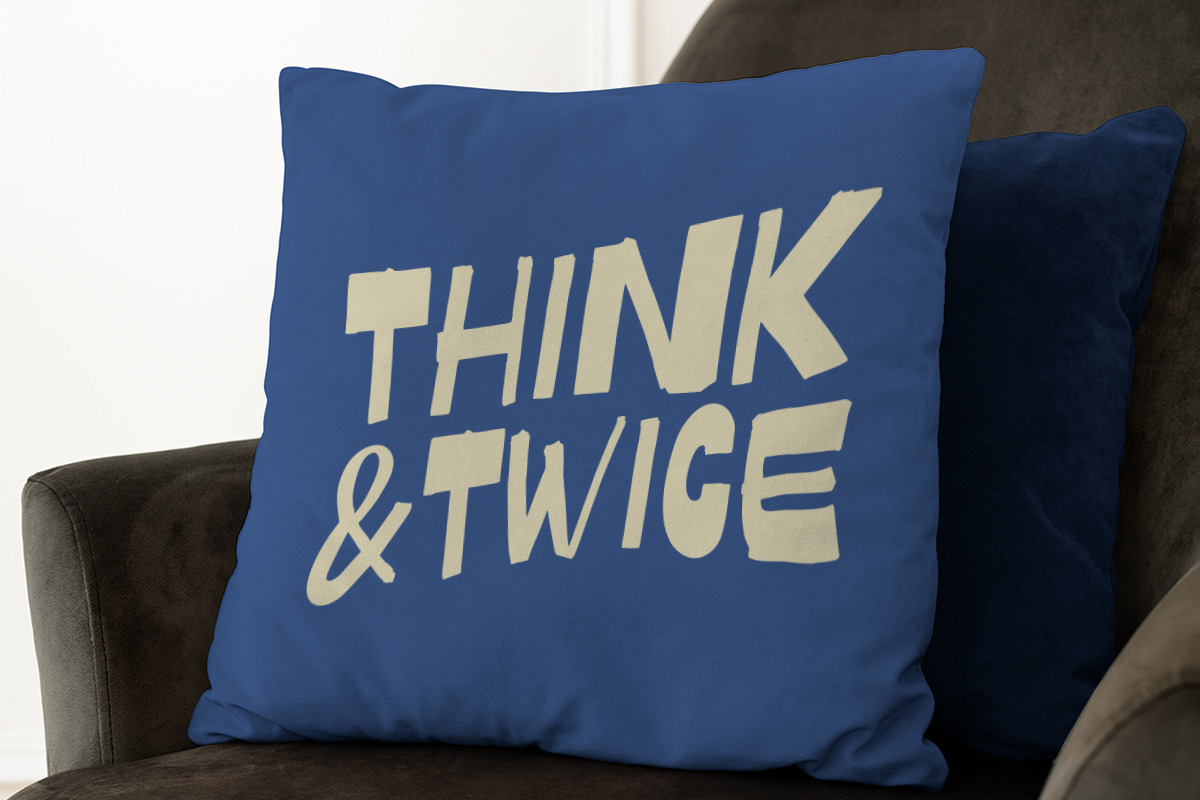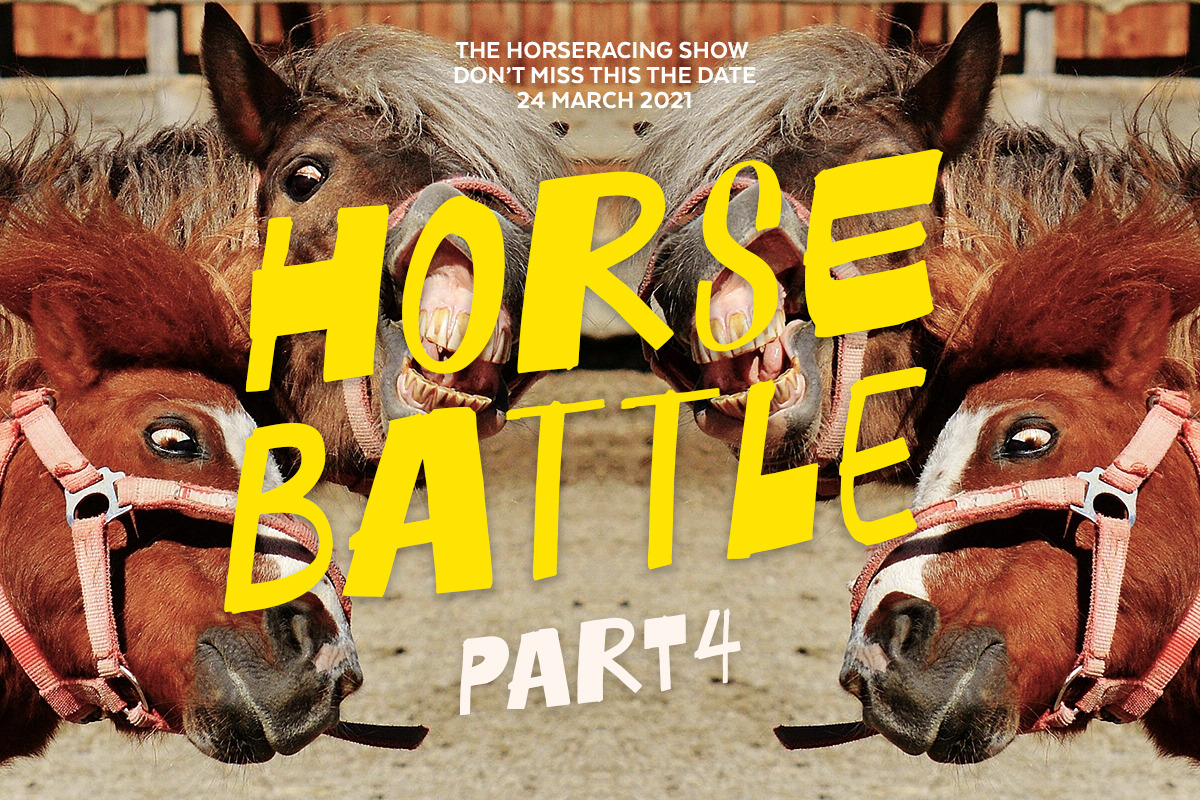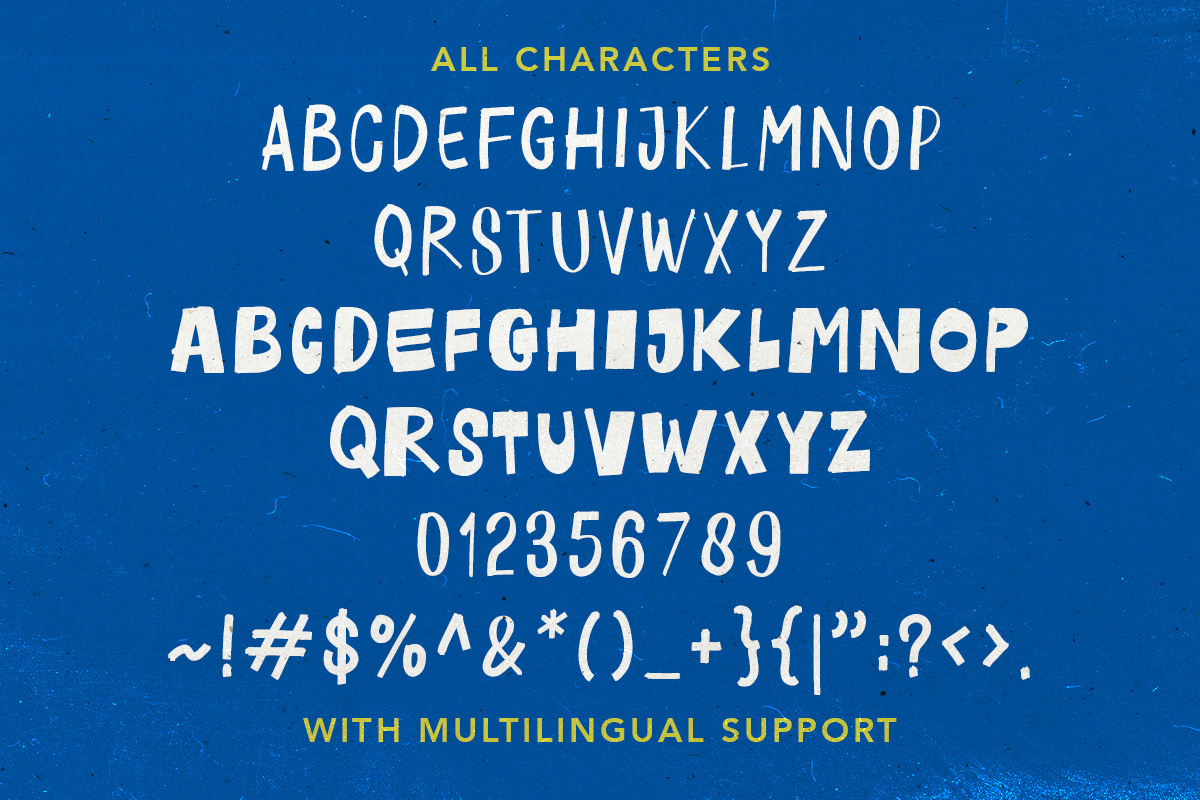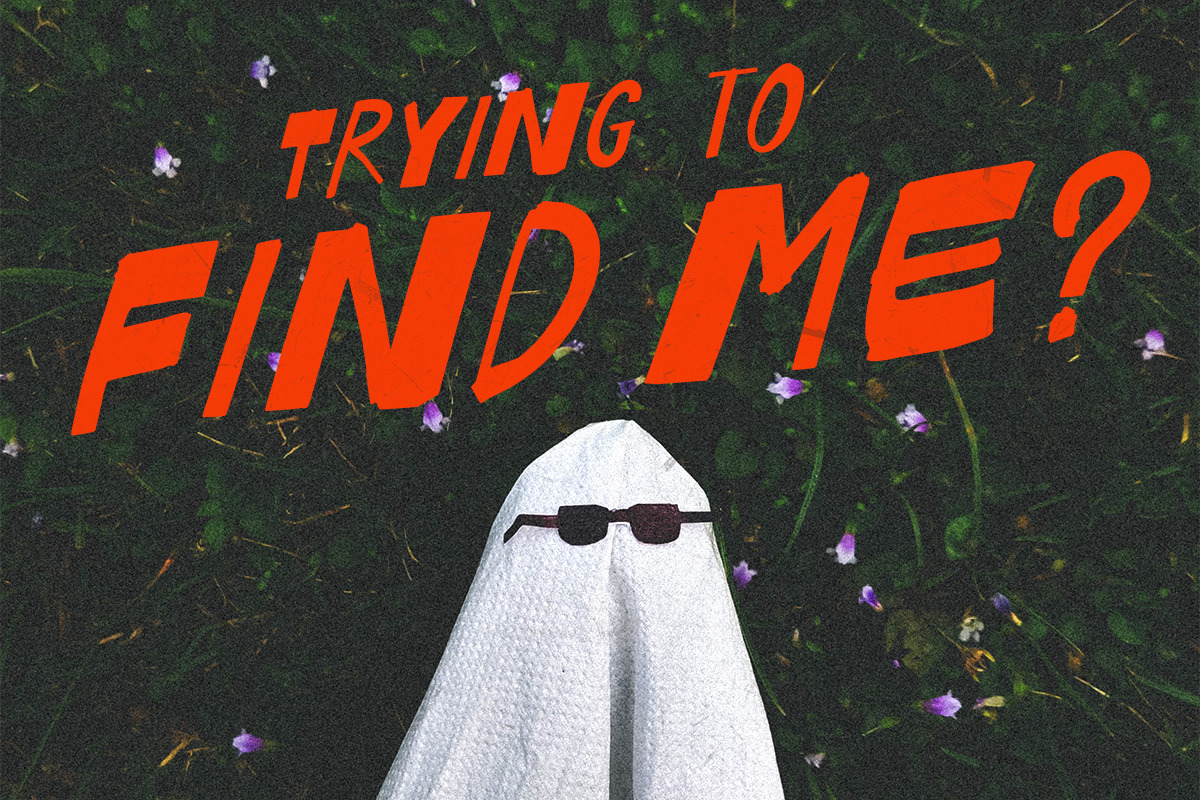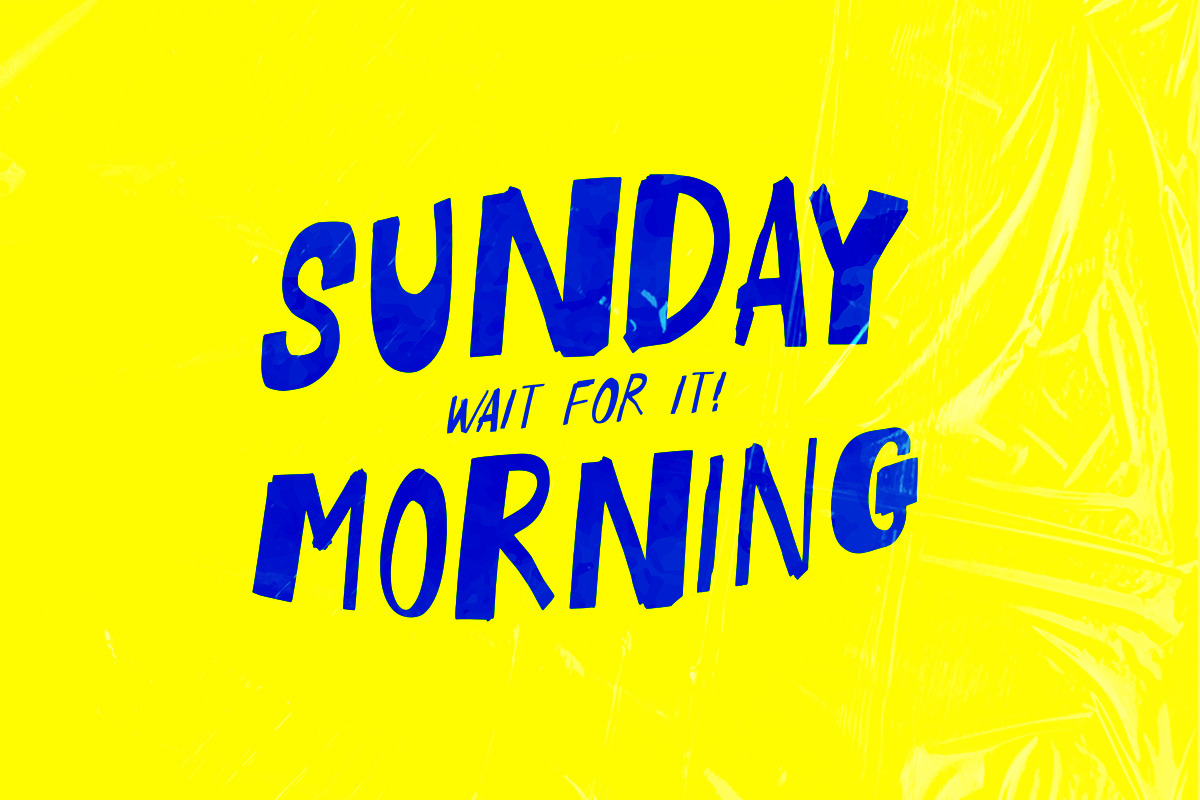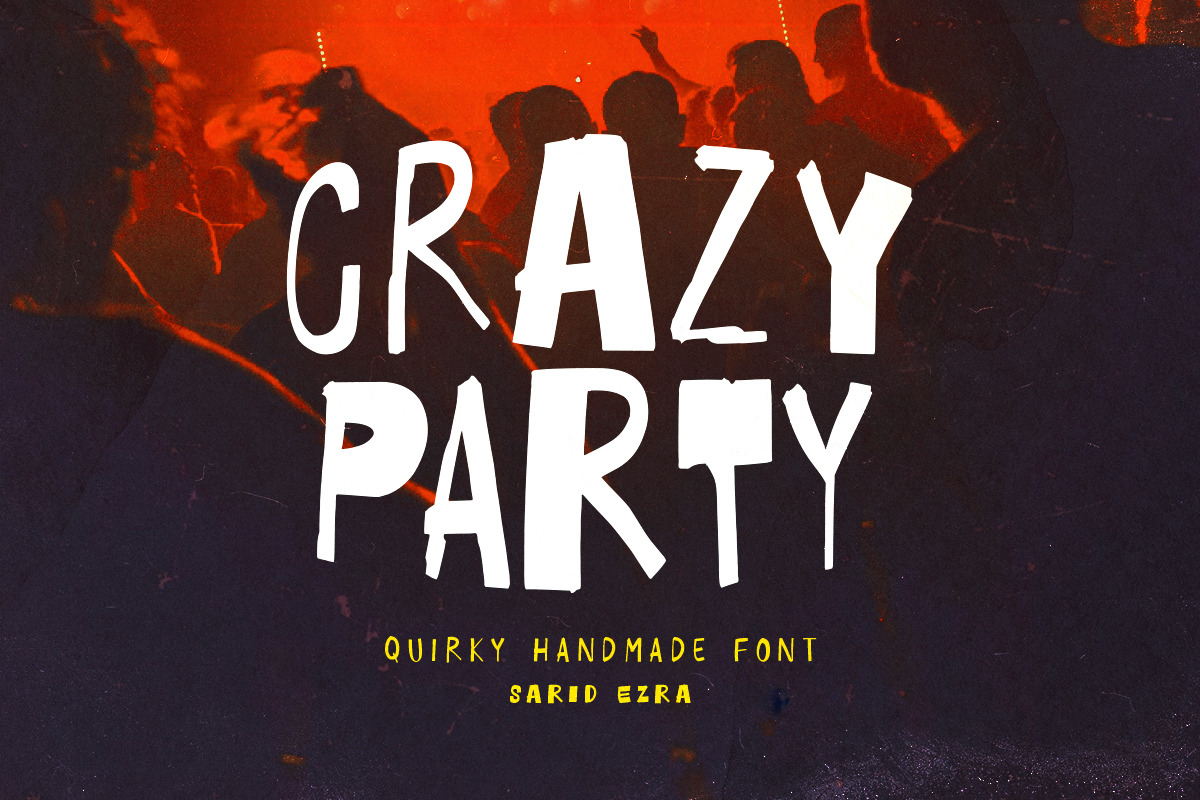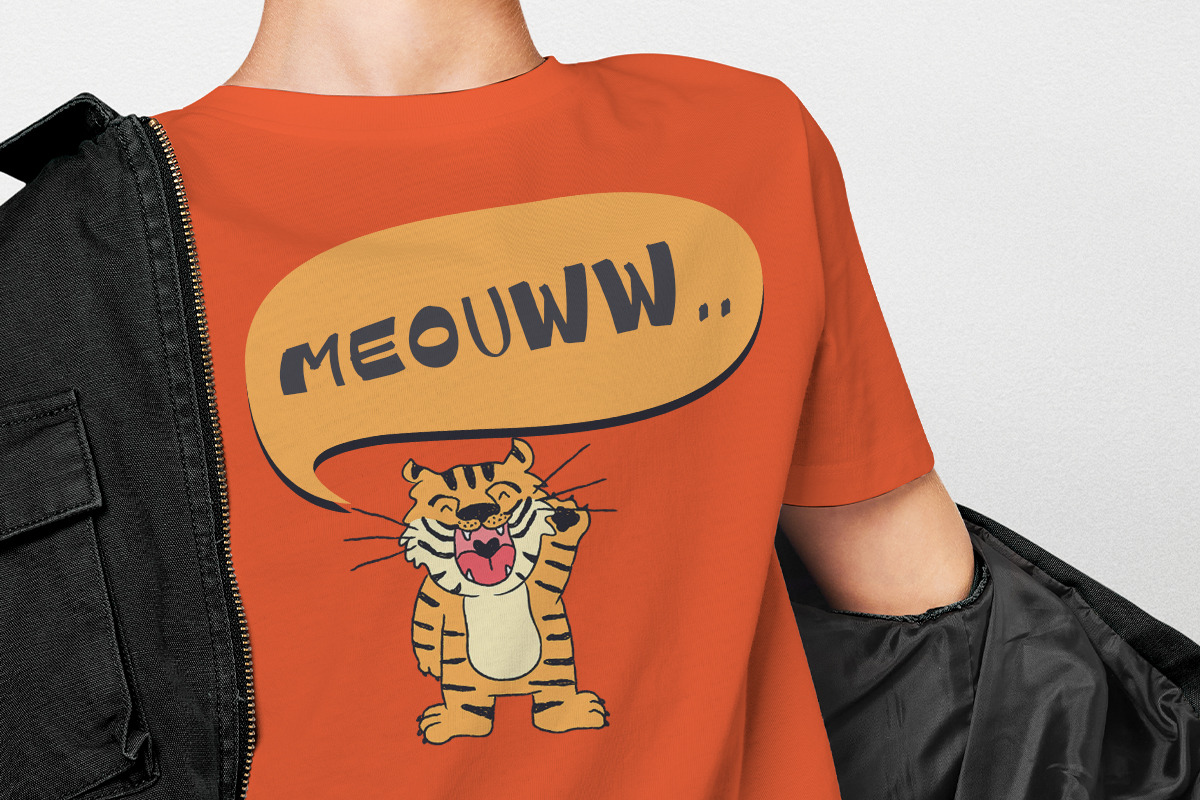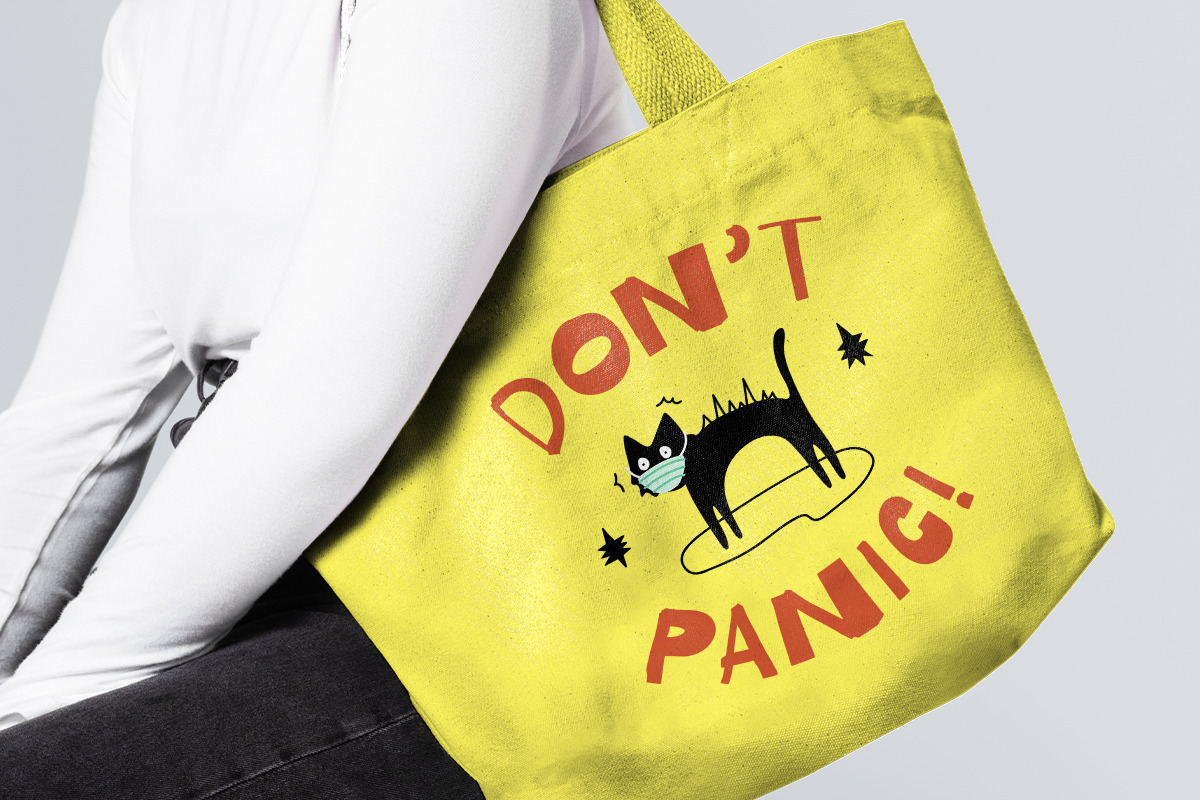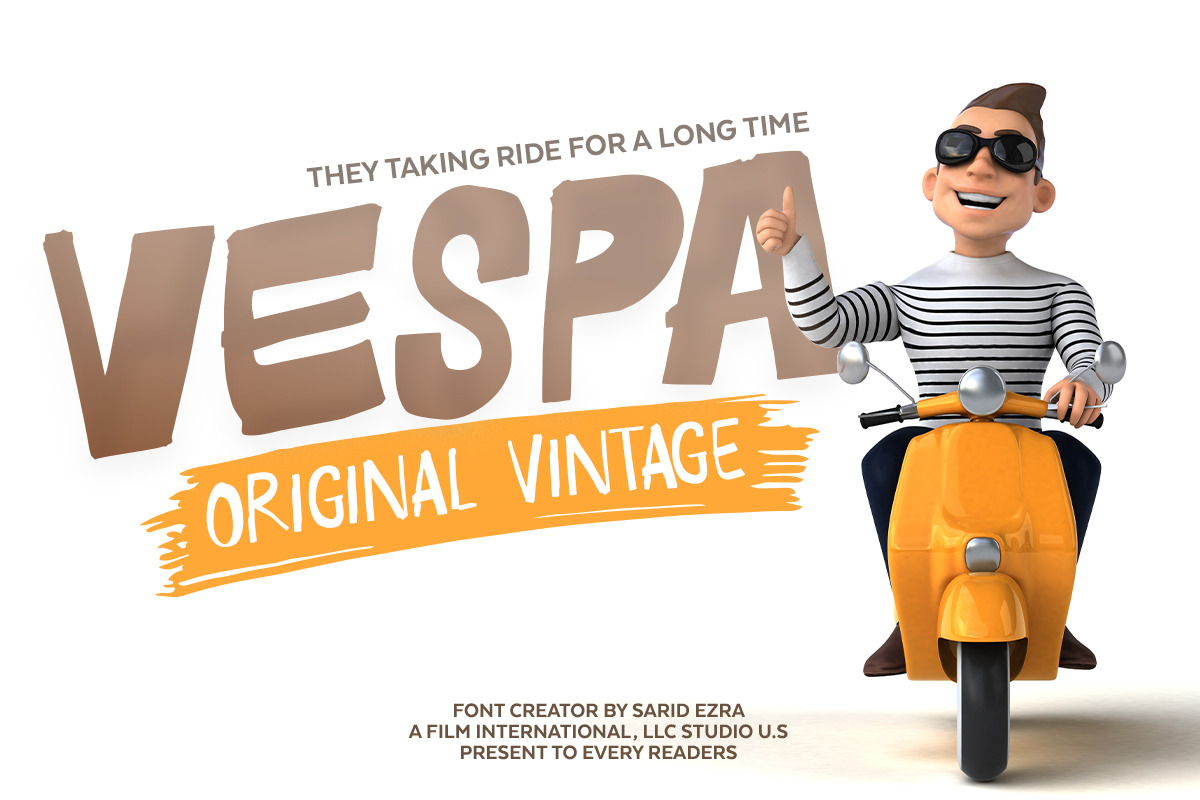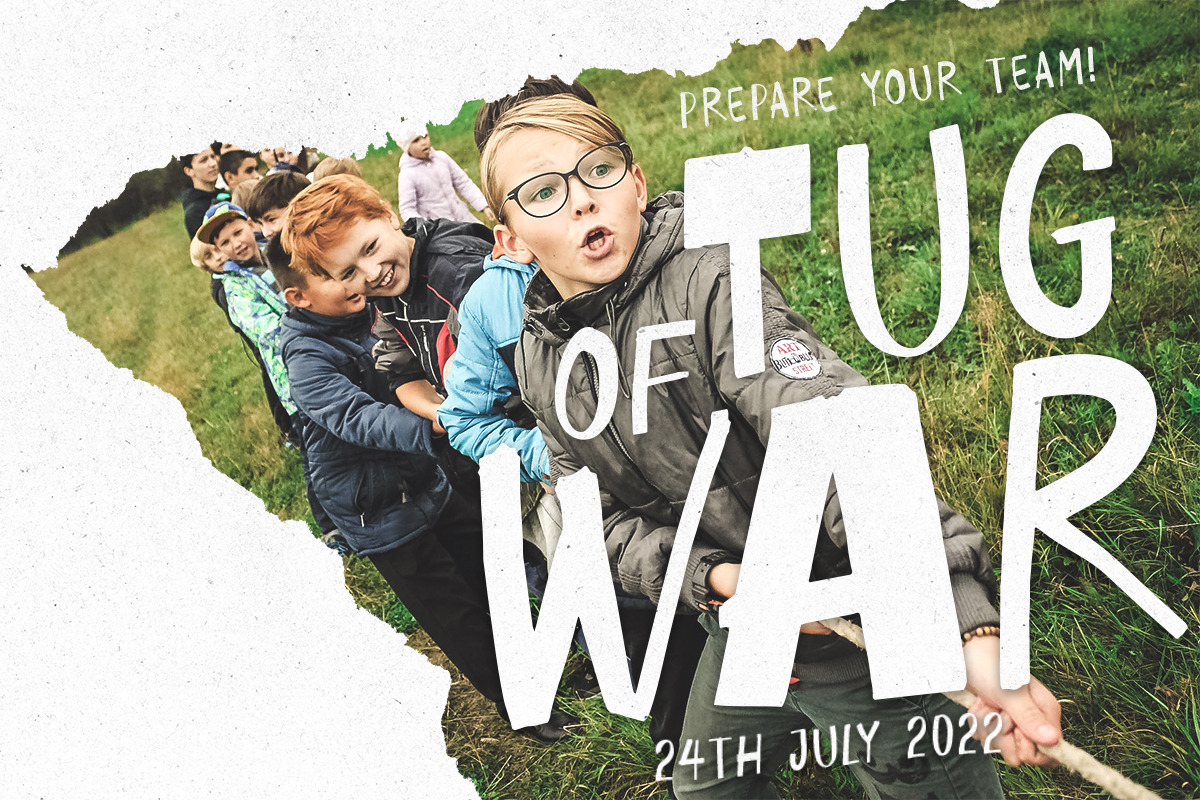
Crazy Party - Quirky Handmade Font
Crazy Party is a quirky handmade font that will make all your project more unique and handy. This font also including a unique lowercase and uppercase with very different weight. Combining the uppercase and lowercase in one word will make your project even more stunning. You can use this font for quotes, your cover book or playing with words in your instagram post. This font also support multilingual!